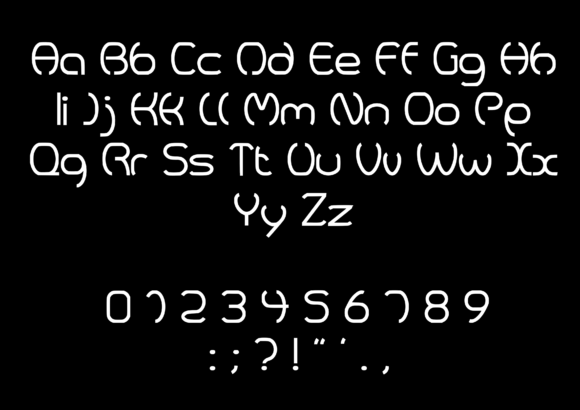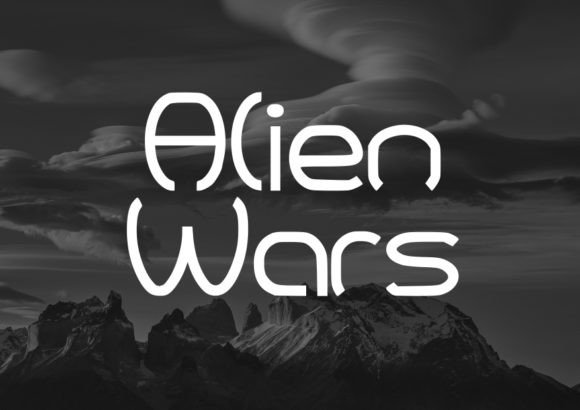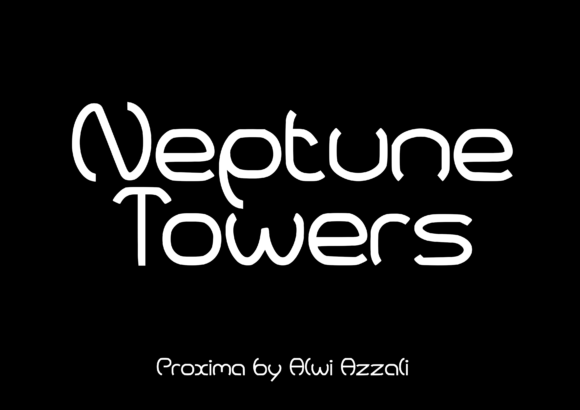
Introduction to Proxima Font
Do you remember the moment when you stumbled upon the perfect font for your creative project? It’s like finding a missing puzzle piece – everything falls into place, and your design comes alive. For me, that moment was when I discovered the Proxima Font. Its sleek and modern design instantly elevated my project, and I knew I had to share it with fellow designers.
The Proxima Font is a valuable resource for any creative project, offering a unique blend of style and sophistication. With its high-quality design, it’s perfect for adding a touch of modernity to your designs. Whether you’re working on a logo, brochure, or social media graphics, this font is sure to be a game-changer. Plus, it’s available for free download, making it an accessible design resource for designers of all levels.
With its transparent background and clean lines, the Proxima Font is a versatile tool that can be used in a variety of contexts. From branding to advertising, this font is sure to make your designs stand out. So, what are you waiting for? Download the Proxima Font today and discover a whole new world of creative possibilities.
Key Features of Proxima Font
- High-quality design resource ideal for creative projects, offering a sophisticated and modern look.
- Unique characteristics include its clean lines, geometric shapes, and subtle flair, making it a standout choice for designers seeking a distinctive look.
Honest Review: Proxima Font
I’ve been experimenting with the Proxima Font in my latest creative project, and I must say it’s been a game-changer. This versatile font is a design resource that never fails to impress. I was blown away by the high quality and crisp details, making it perfect for various design applications.
The Proxima Font is available for a free download, which is a major plus for designers on a budget. The transparent background allows for seamless integration with any design element, making it incredibly easy to work with.
- High-quality design and crisp details
- Perfect for various design applications, from digital to print
- Not suitable for extremely small text sizes
Overall, I’m thoroughly impressed with the Proxima Font. It’s a reliable design resource that delivers high-quality results. If you’re looking for a versatile and free font, I highly recommend giving it a try.
Tips for Getting the Most Out of Proxima Font
To get the most out of the Proxima Font, use it on a transparent background to create a modern and sleek design. You can also pair it with other high-quality fonts to create a unique and creative look.
The Proxima Font is commonly used in modern branding, logos, and web design. Its clean and minimalist design makes it perfect for creating a professional and sleek look.
Is the Proxima Font suitable for high-resolution designs?
Yes, the Proxima Font is designed to be high-quality and suitable for use in high-resolution designs. The font’s transparent background and crisp lines make it an excellent choice for designers working on high-resolution projects, including those that require detailed typography and precise design elements.